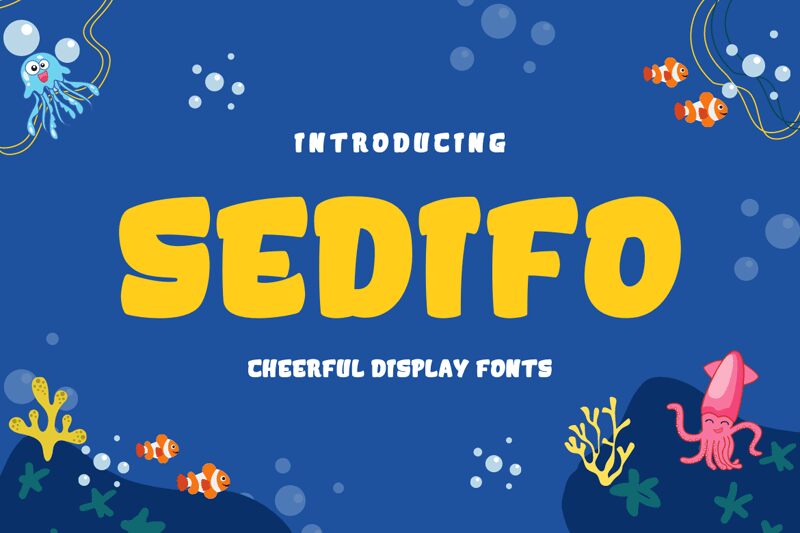
Designed by the imaginative minds at Twinletter, Sedifo bursts onto the creative scene with its extra-bold weight and cartoonish charm. This display font captures the essence of fun and cheerfulness, making it a standout choice for designers seeking to inject personality into their projects.
Sedifo's playful contours and robust form are perfect for attention-grabbing headlines, vibrant branding initiatives, or whimsical product packaging. Not just for child-centric designs, this versatile typeface can bring a touch of light-heartedness to a variety of creative endeavors.